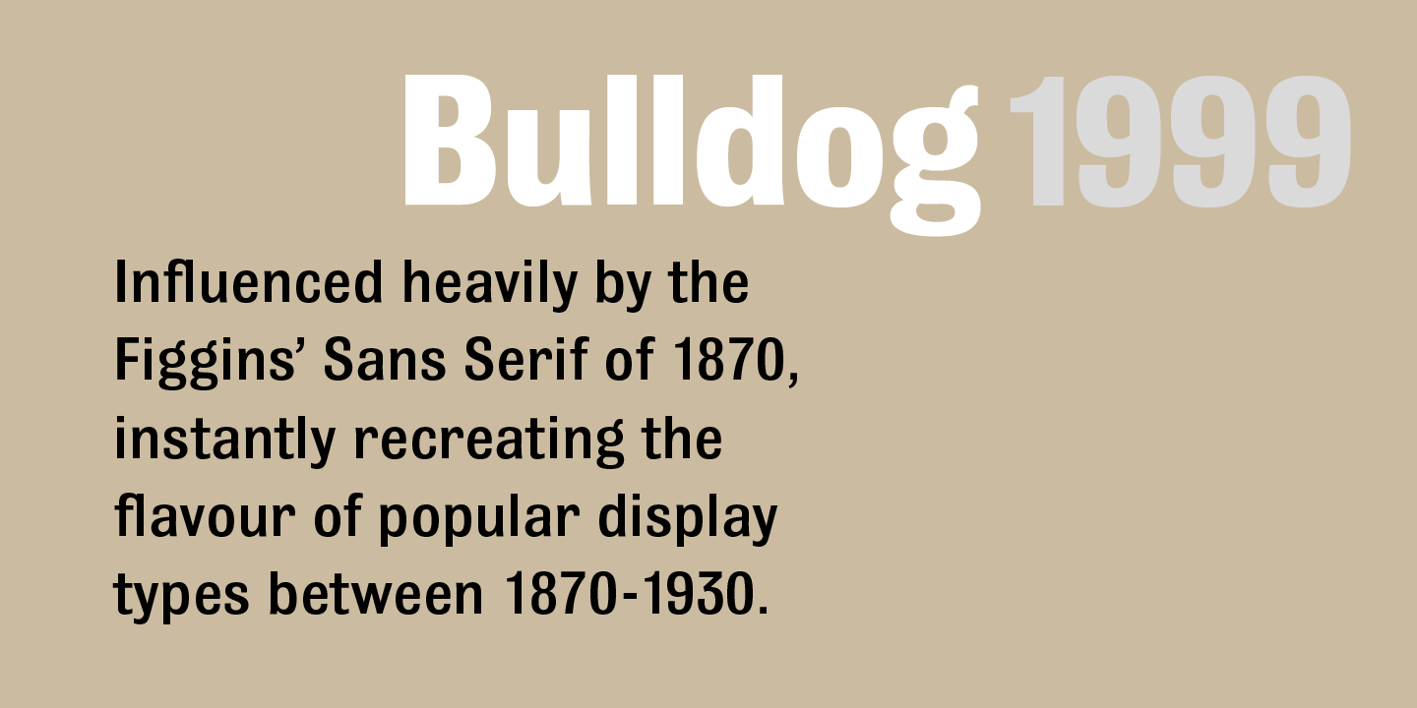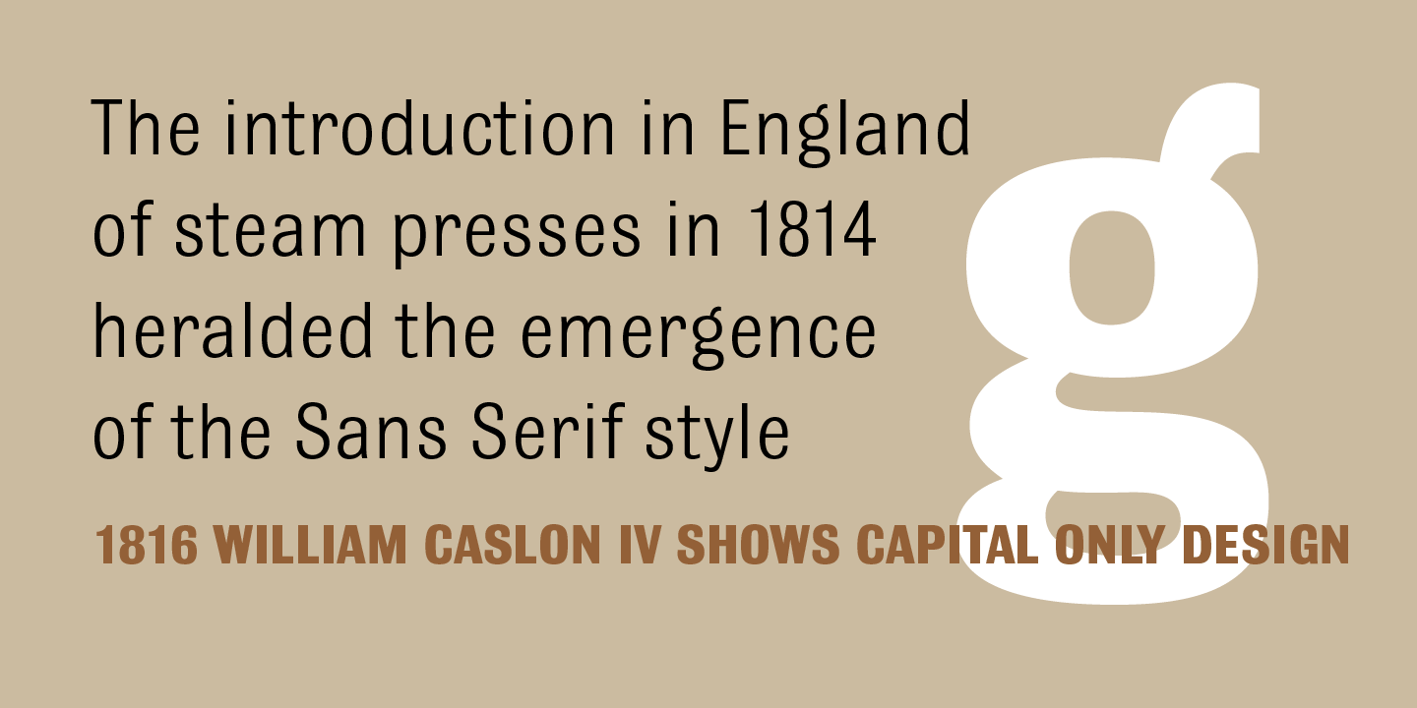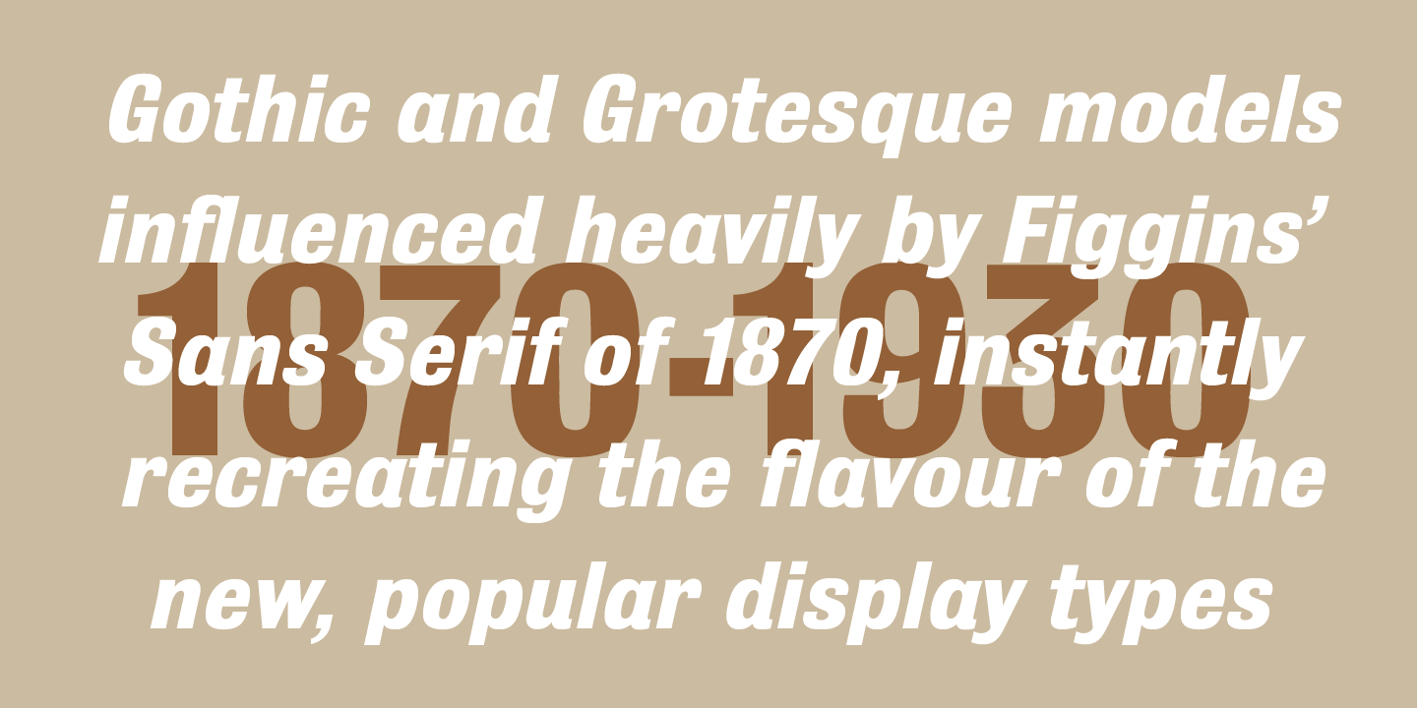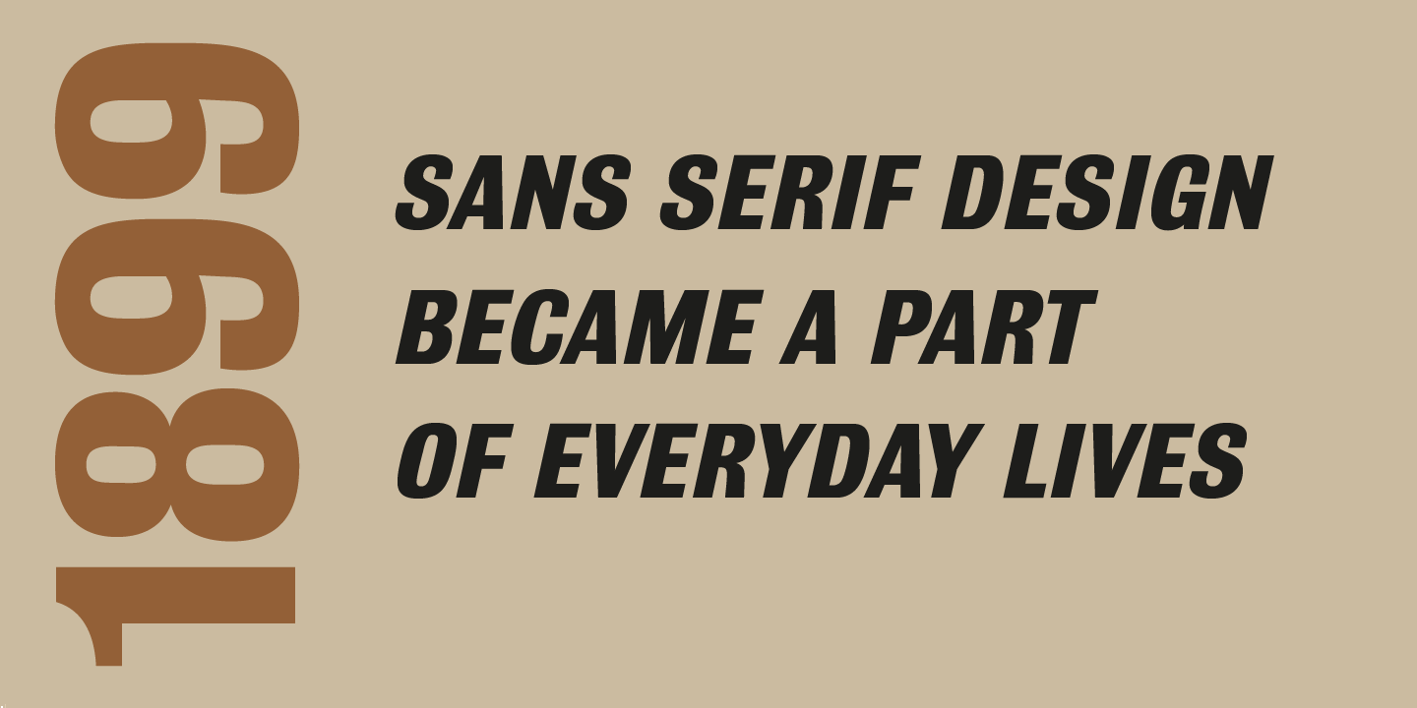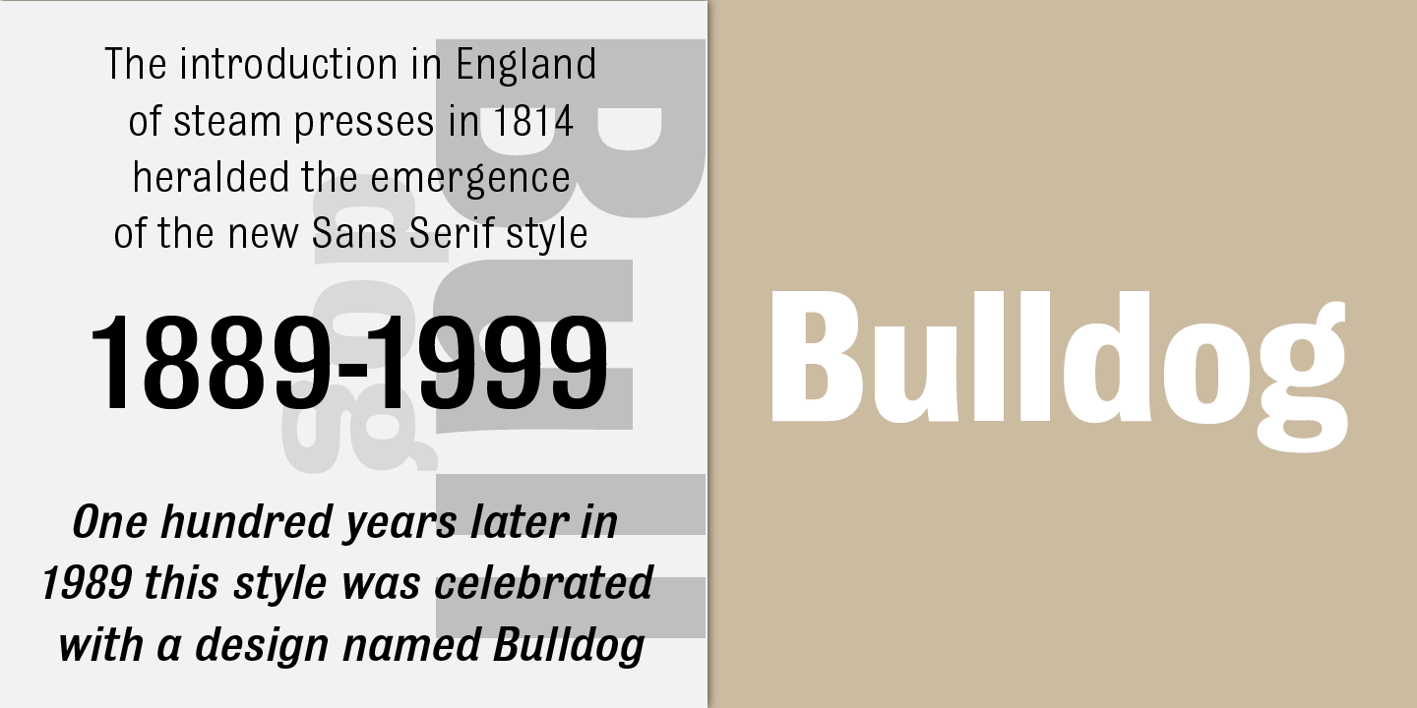
Bulldog Font
Bulldog Font is perfect for sports team branding, gym signage, athletic wear packaging, competitive event graphics, strength training materials, mascot logos, school spirit designs, fitness club marketing, championship banners, motivational posters, tough guy merchandise, and bold projects that require powerful, determined typography with unwavering strength and tenacious character.
What makes Bulldog Font so exciting is its fierce determination and uncompromising strength that embodies the legendary tenacity and loyal spirit of the bulldog breed. This typeface features bold, muscular letterforms with sturdy construction and aggressive stance that creates an immediate sense of power, reliability, and unstoppable determination. The font's tough character and fearless attitude make it perfect for brands and projects that want to communicate strength, loyalty, and the kind of relentless perseverance that never backs down from any challenge.
Bulldog Font typically comes in multiple weights and styles including Regular, Bold, Black, and Condensed variations. Many versions also include athletic symbols, competitive ornaments, and power-themed decorative elements that enhance the font's strength-focused functionality and provide designers with comprehensive tools for creating champion-level typography compositions that dominate with authority.
Whether you're designing sports branding, fitness marketing, or competitive event materials, Bulldog Font delivers exceptional toughness and authentic athletic spirit that connects with audiences who value determination, loyalty, and the relentless pursuit of excellence. Its muscular presence works exceptionally well in large display applications where its powerful stance can inspire and motivate audiences to push beyond their limits.
The powerfully constructed letterforms of Bulldog Font showcase the ultimate expression of strength-based typography and competitive design principles. Each character has been built to withstand any challenge while maintaining excellent readability, ensuring that your messages carry the weight and authority of true champions who never surrender and always fight for victory with unwavering determination.